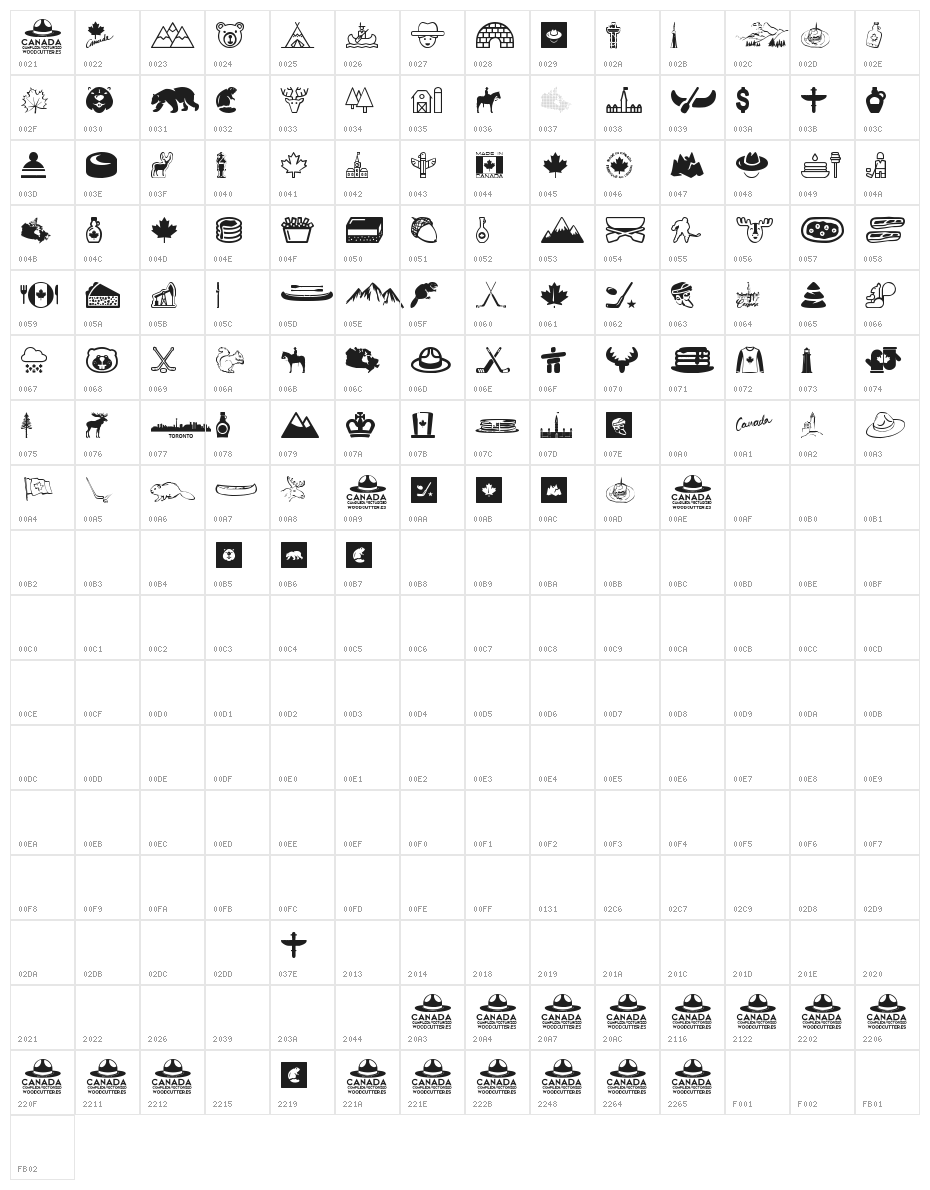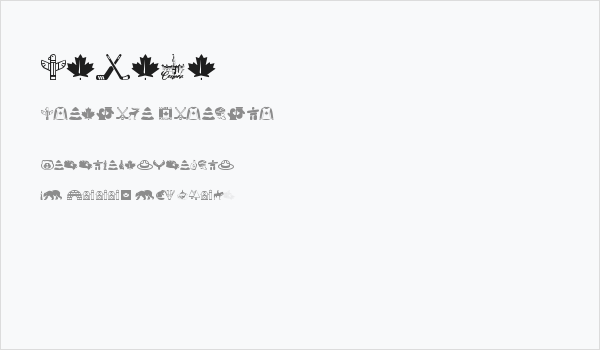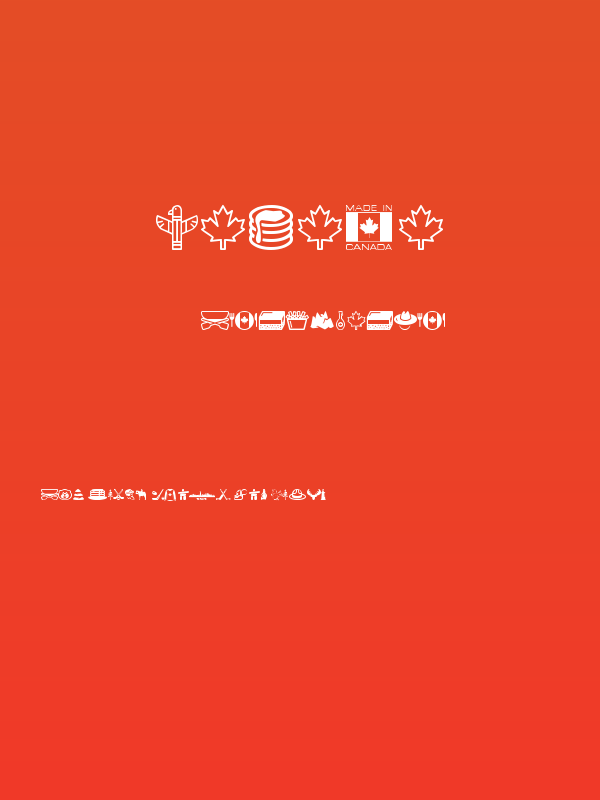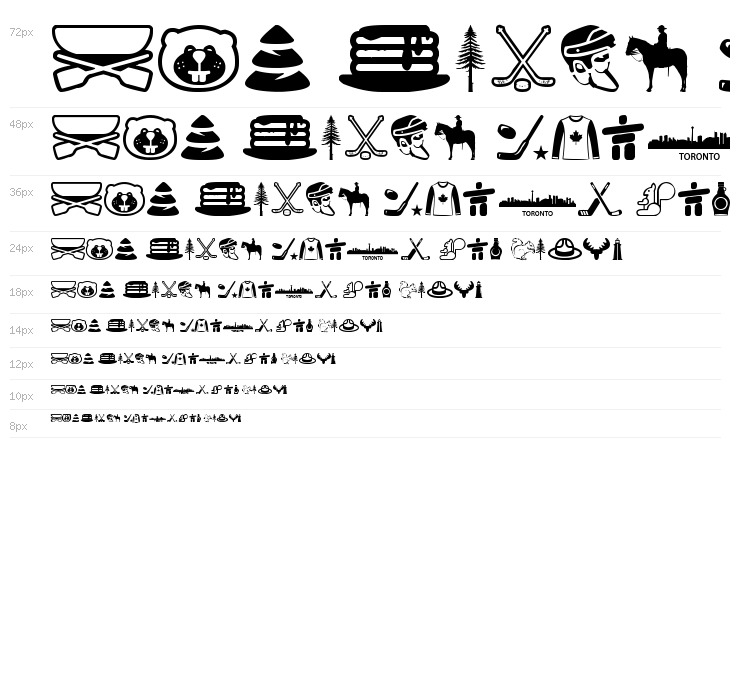
Canada Font
Canada Description
A decorative dingbat font featuring a variety of Canadian-themed icons, including maple leaves, wildlife, food, landmarks, and cultural symbols. The icons are bold, simple, and highly recognizable, rendered in solid black or outlined styles.
| Overall Style | Decorative, Thematic |
| Use Case | Logos, Posters, Infographics, Themed Graphics |
| Proposed Projects | Tourism branding, event posters, educational materials, themed merchandise, infographics. |